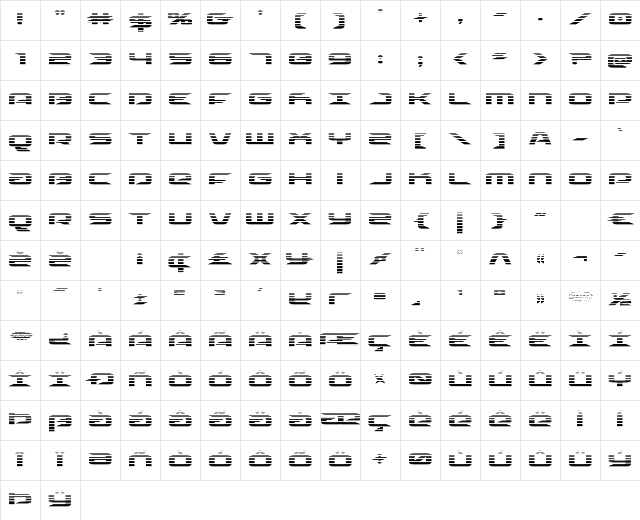
Complete Drive Scanlines Regular glyph index. Displaying only characters natively supported by Drive Scanlines Regular font.
Drive Scanlines is a composed and adaptable typeface that performs quietly and consistently across a wide range of design contexts.